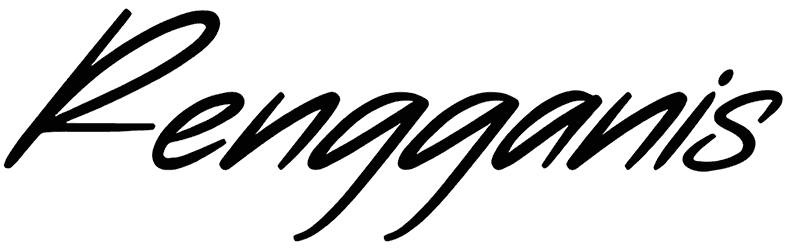
Rengganis Font
Rengganis is ideal for designing creative tasks like branding, cards, flyers, and apparel because of its flowing style and exceptional undertones. This handwritten font enables you to improve the visual style of your projects and protect them from becoming mundane.